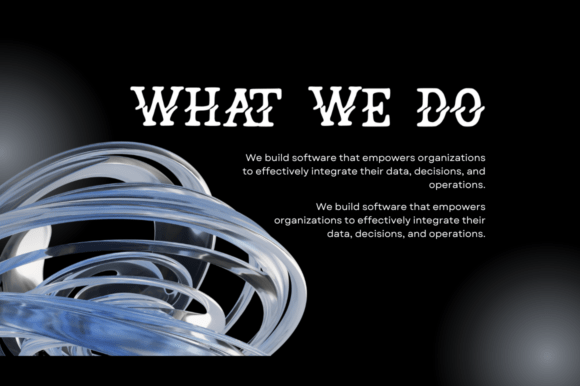
Errorglyph Font
Errorglyph is a distorted vintage serif font with bold all-caps lettering and chaotic wave-like strokes. Inspired by aged typewriters and decaying print presses, this typeface is perfect for band posters, rebellious branding, zines, horror titles, and anything that needs a gritty, worn-out look with attitude.